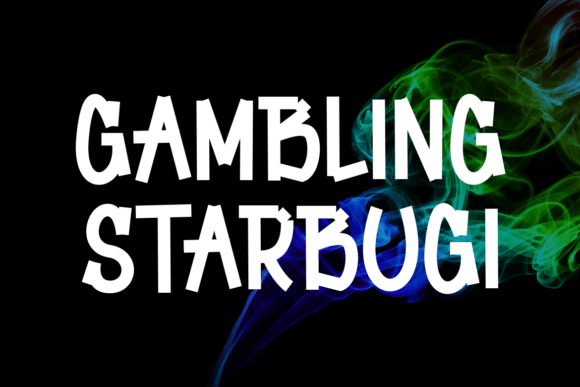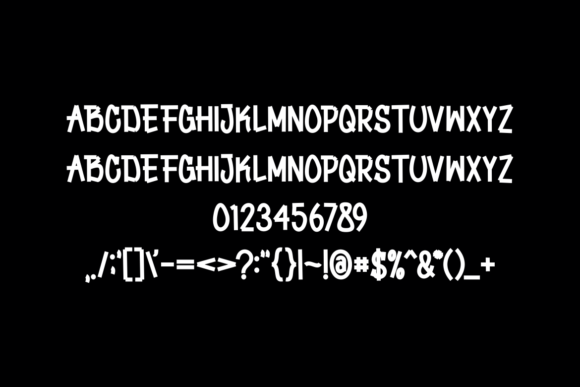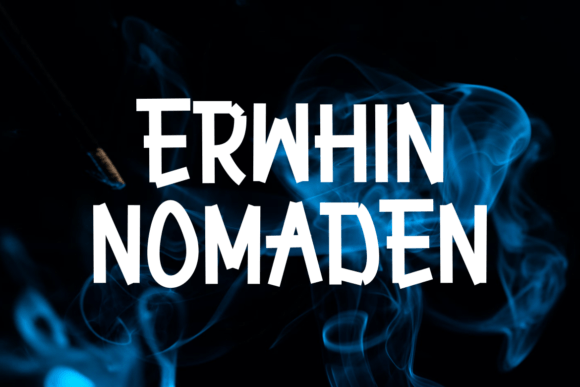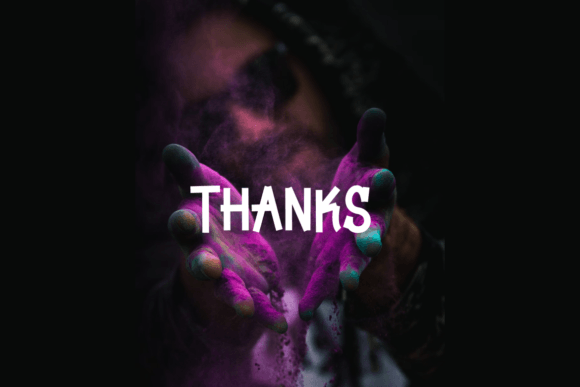
Gluwehan Font: Elevate Your Designs with a Bold and Authentic Display Font
In the realm of typography, a font can make or break a design. It’s the foundation upon which a brand’s identity is built, conveying its message, personality, and values. For designers and crafters seeking a bold and authentic display font, Gluwehan Font is an exceptional choice. This modern font is specifically designed to make a statement, perfect for branding projects that demand attention and sophistication.
What is Gluwehan Font?
Gluwehan Font is a bold and authentic display font, crafted to help designers create stunning visual identities for their projects. Whether you’re working on a logo, esport, or any other branding endeavor, this font is engineered to deliver. Its modern aesthetic and robust design make it an outstanding choice for a wide range of contexts, from digital platforms to print materials.
Key Features of Gluwehan Font
- Bold and Authentic: Gluwehan Font boasts a bold and authentic style, perfect for making a statement in your designs.
- Modern Aesthetic: Its modern design ensures that your projects look contemporary and fresh, appealing to a wide audience.
- Versatile: This font is versatile and can be used in various contexts, including logos, esports, and more.
- High-Quality: Crafted with precision, Gluwehan Font offers high-quality typography that elevates your designs.
Why Choose Gluwehan Font?
Choosing the right font for your project is crucial, and Gluwehan Font stands out for several reasons:
- Uniqueness: In a sea of fonts, Gluwehan Font offers a unique and distinctive style that can set your brand apart.
- Legibility: Despite its bold nature, the font maintains excellent legibility, ensuring your message is always clear.
- Customization: Gluwehan Font can be easily customized to fit your project’s specific needs, offering flexibility in design.
Gluwehan Font is a powerful tool for designers and crafters looking to infuse their projects with a bold and authentic display font. Its modern aesthetic, versatility, and high-quality design make it an excellent choice for a wide range of applications. Whether you’re crafting a logo, working on an esport project, or exploring new branding opportunities, Gluwehan Font can help elevate your designs to the next level. With its unique style and robust features, it’s poised to become a go-to font for creatives seeking to make a lasting impression.